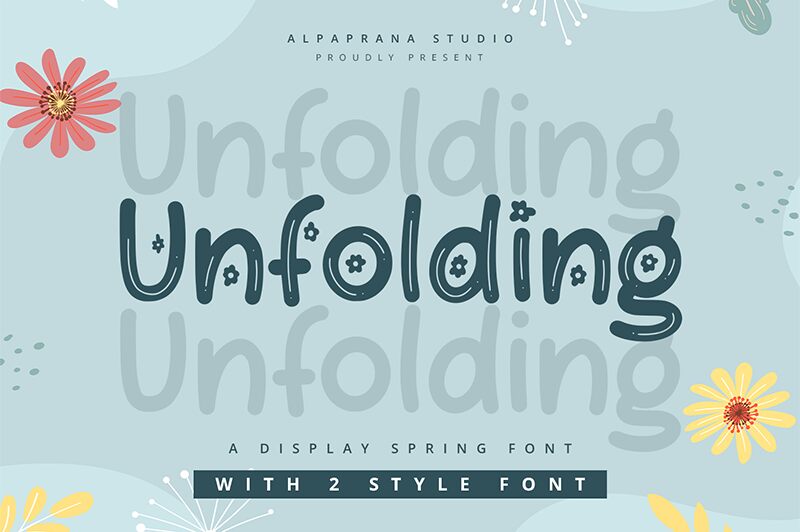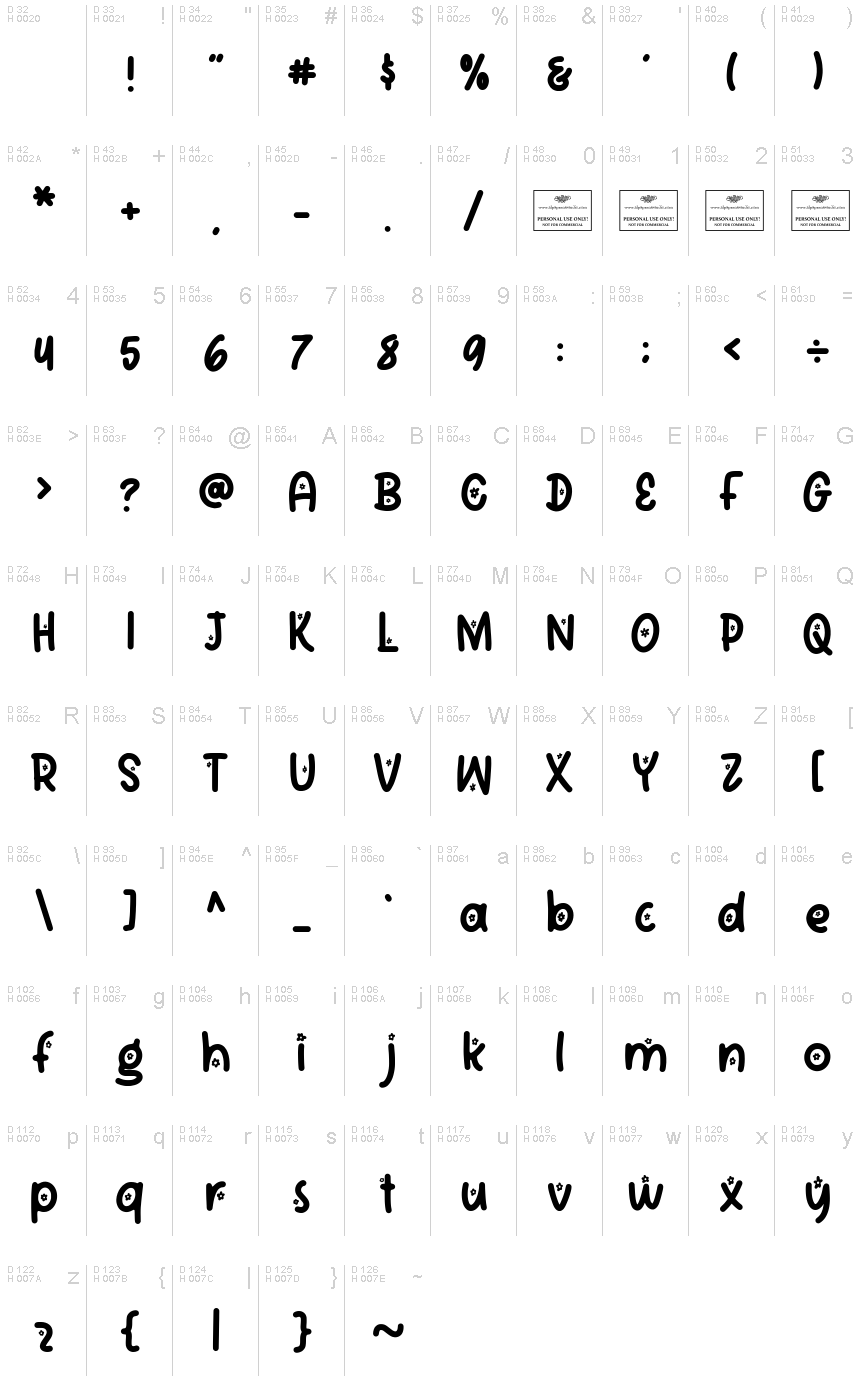
Unfolding Flower
Unfolding Flower, designed by Alpaprana Studio, captures the whimsical essence of nature with its vibrant and decorative style. This font features playful curves and charming floral accents that dance across the letters, evoking a sense of joy and creativity. The lightness of the characters enhances their inviting appeal, while the exaggerated forms impart a sense of fun and spontaneity.
Perfect for a variety of design contexts, Unfolding Flower shines in children’s book covers, playful invitations, or branding that seeks to connect with an audience in a friendly manner. Its distinctive charm makes it ideal for projects that aim to inspire delight and curiosity. Embrace this font to bring an imaginative flair to your designs!